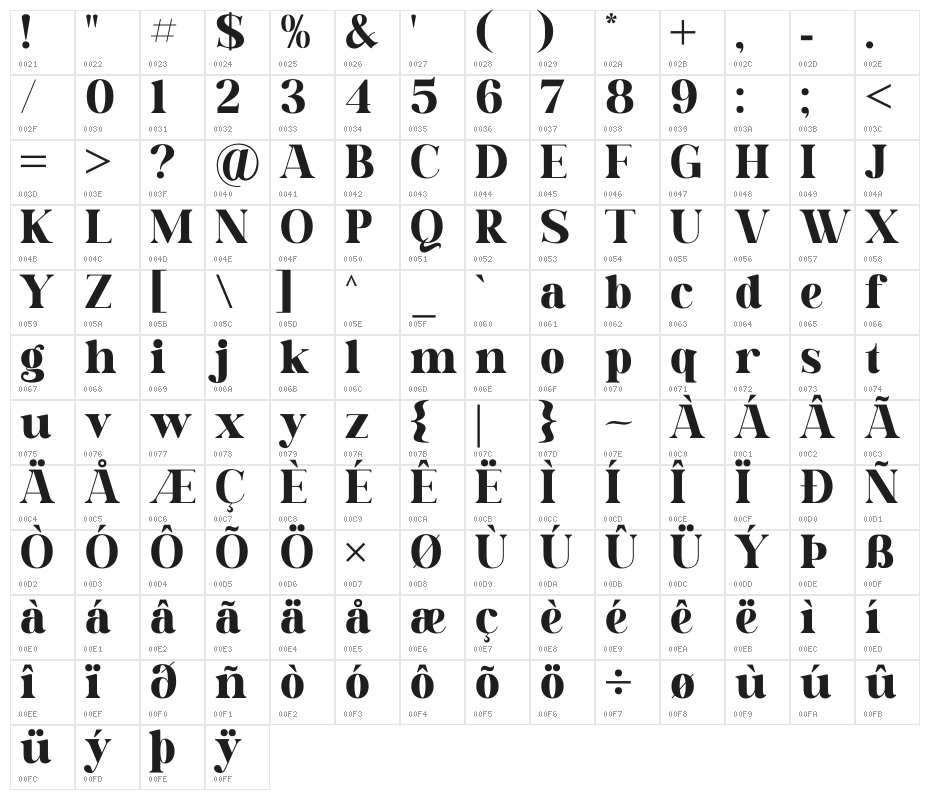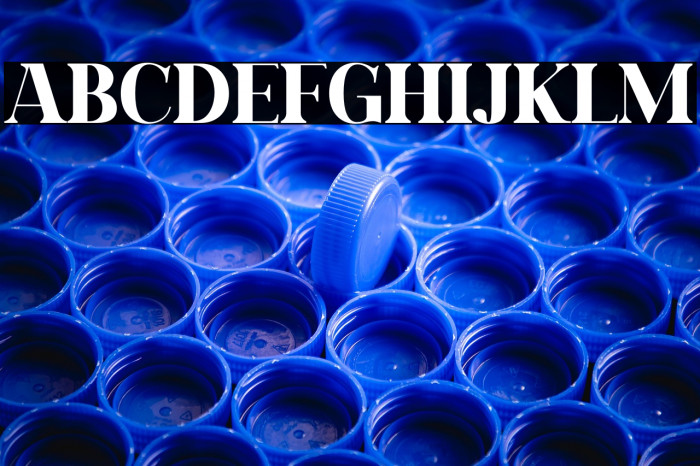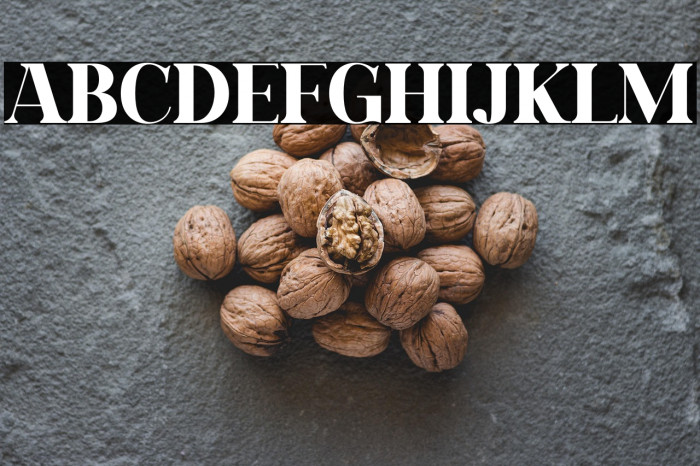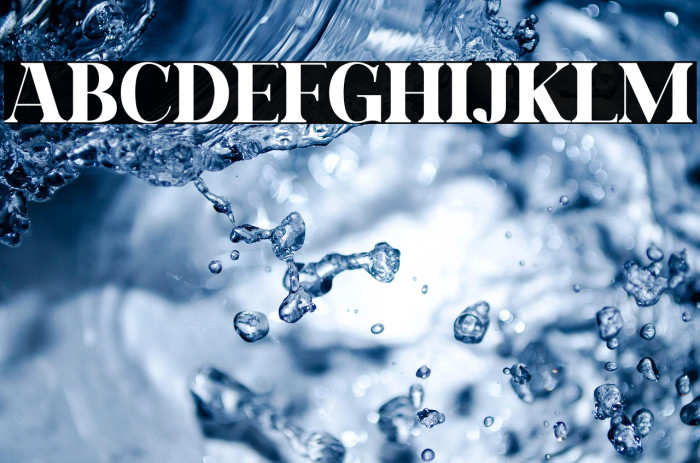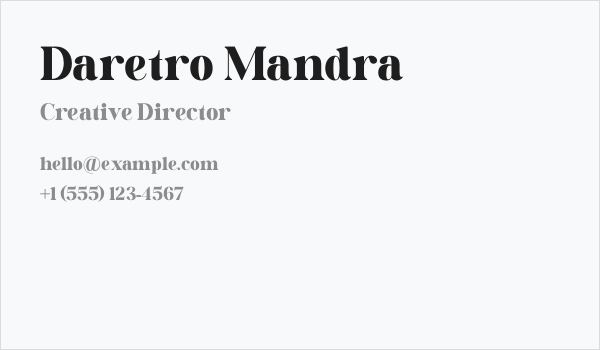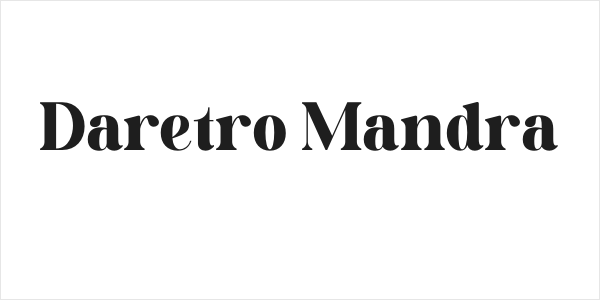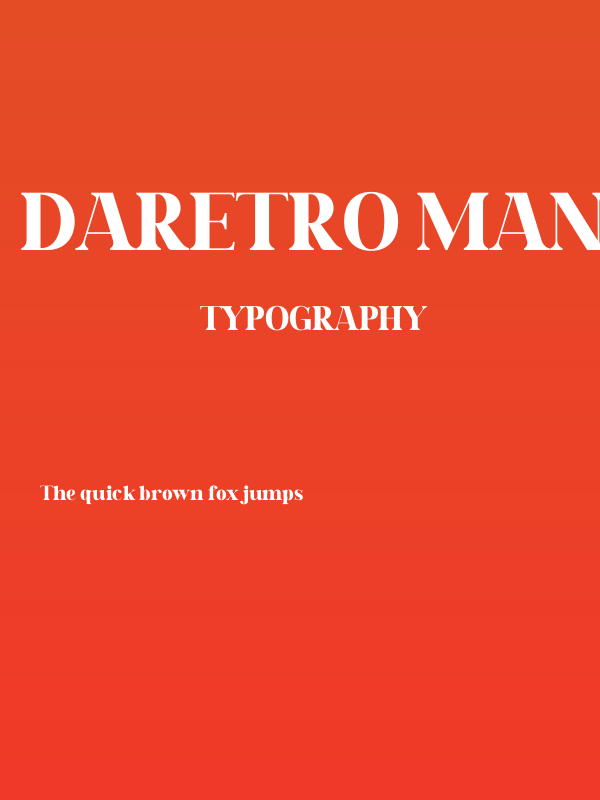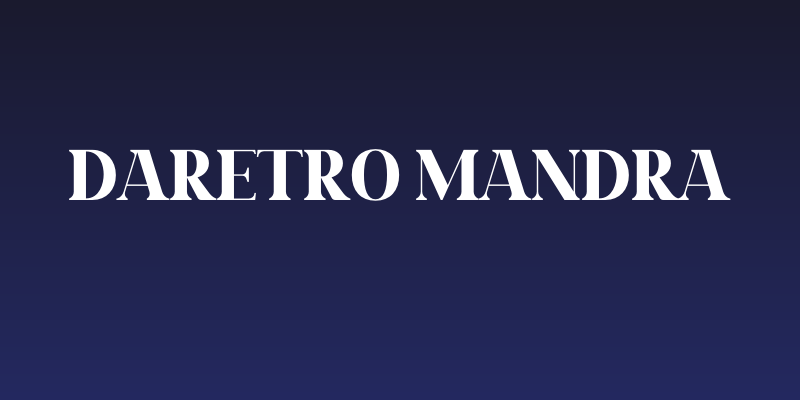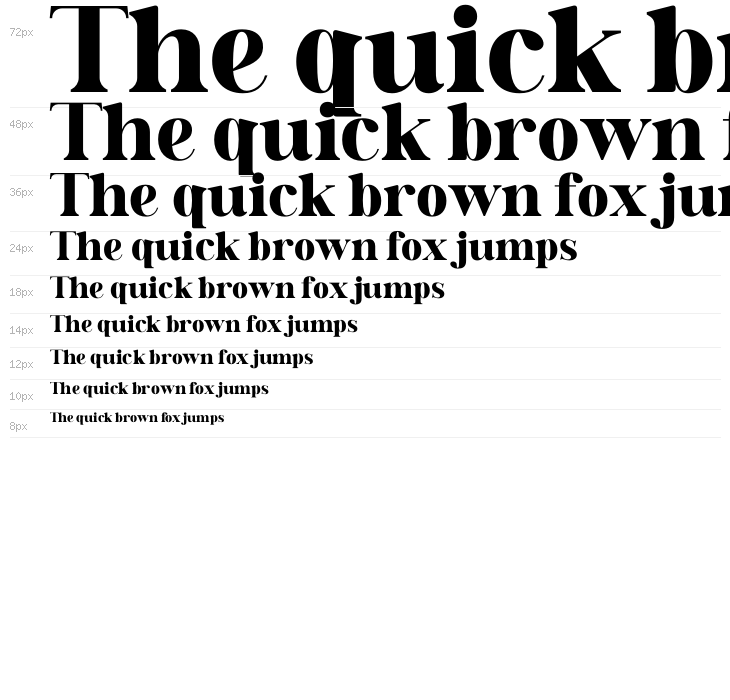
Daretro Mandra Font
Daretro Mandra Description
This font features a bold and dramatic style with high contrast between thick and thin strokes, giving it a striking and elegant appearance. The serifs are pronounced, adding a classic touch to the overall design. The uppercase letters are tall and commanding, while the lowercase letters maintain a consistent flow with subtle curves. The numerals are robust and align well with the overall aesthetic. Special characters are designed with the same boldness, ensuring they stand out. This font is ideal for making a statement in any design project.